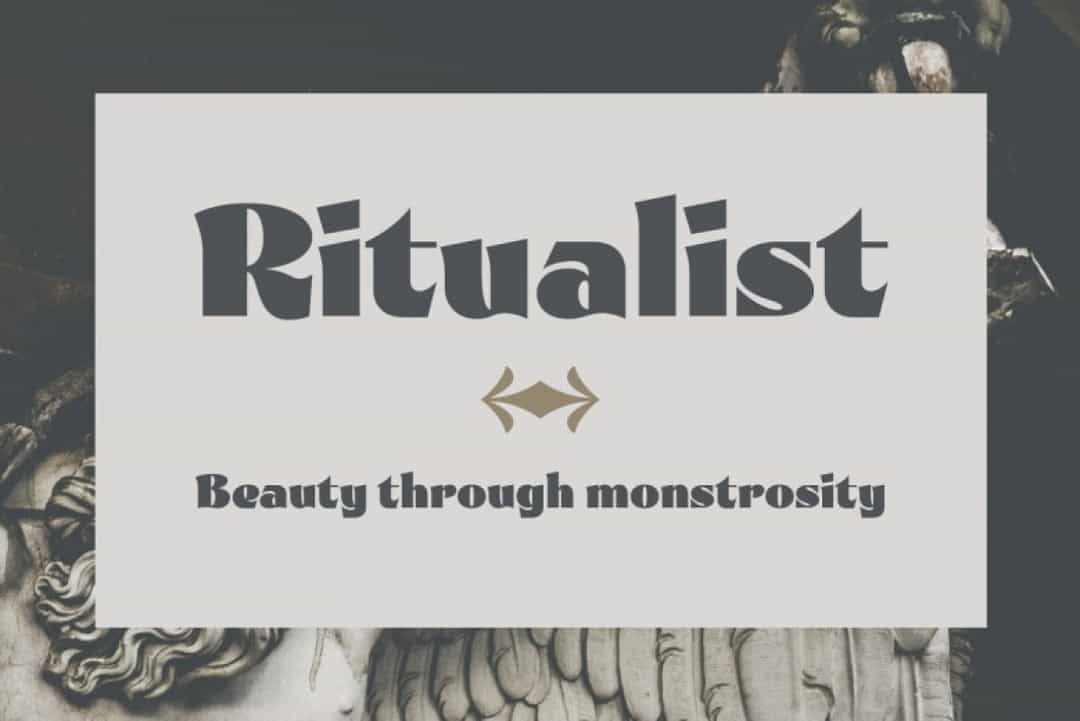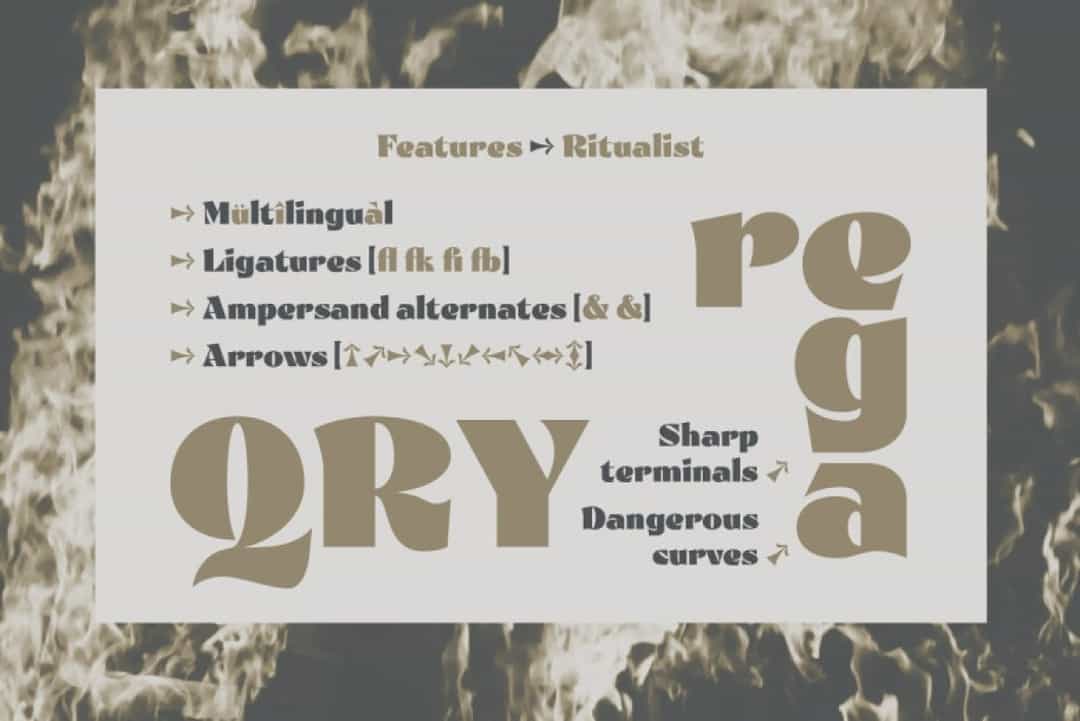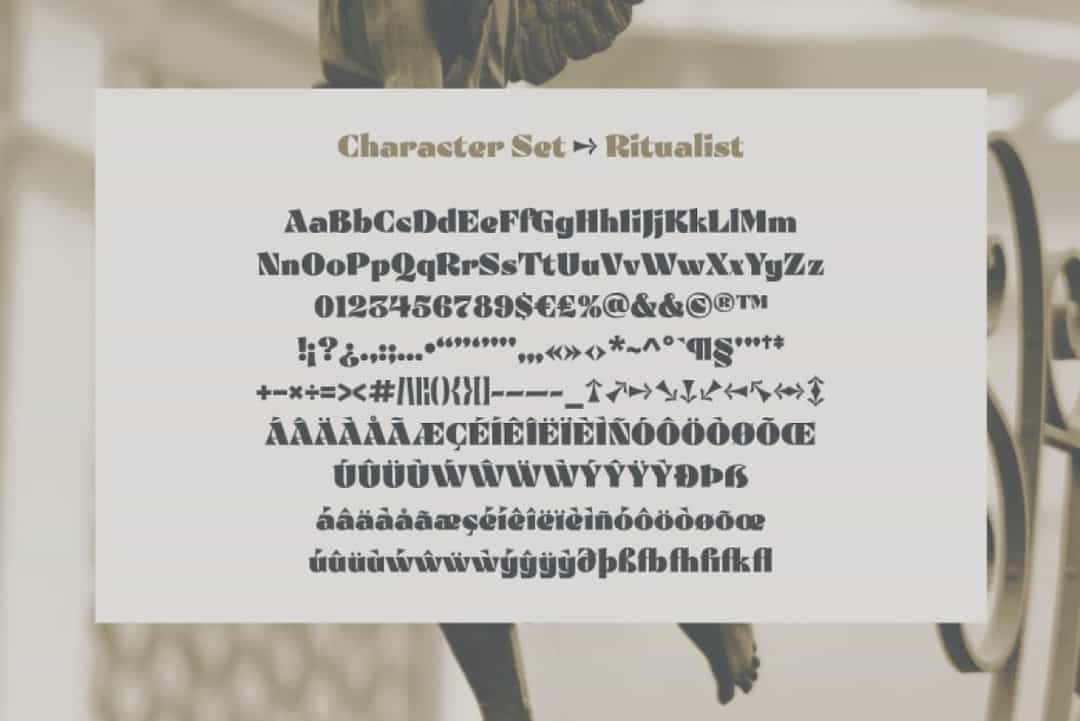
Ritualist Font is an expansive custom typeface that blends simplicity with boldness. Inspired by contemporary design trends, this font stands out clearly when employed as headline texts; making Ritualist an excellent choice for badges, logos packaging posters T-shirt designs and more.